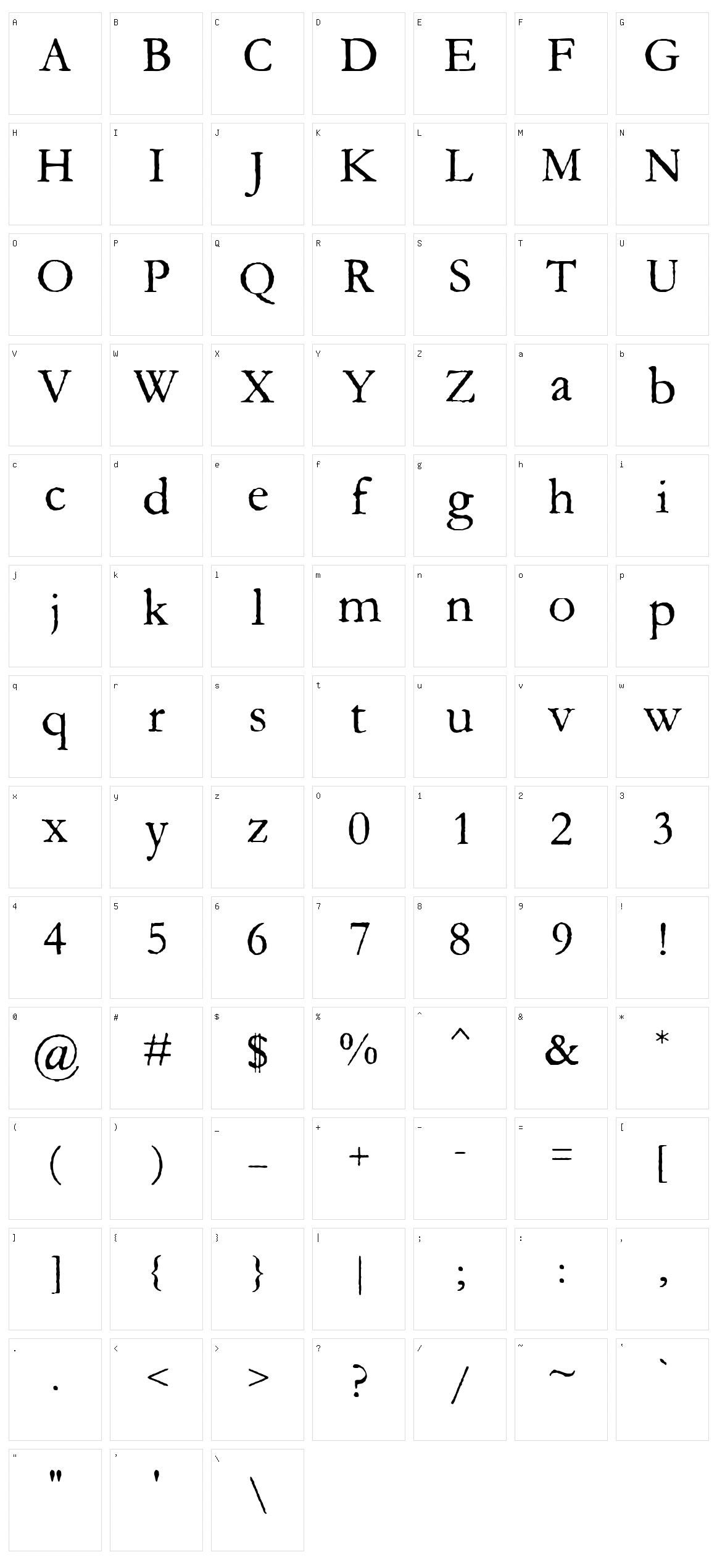
Aquifer Font
The Aquifer font is an antique serif font based on Garamond. It comes with alphanumeric symbols, punctuation, currency symbols and international symbols.